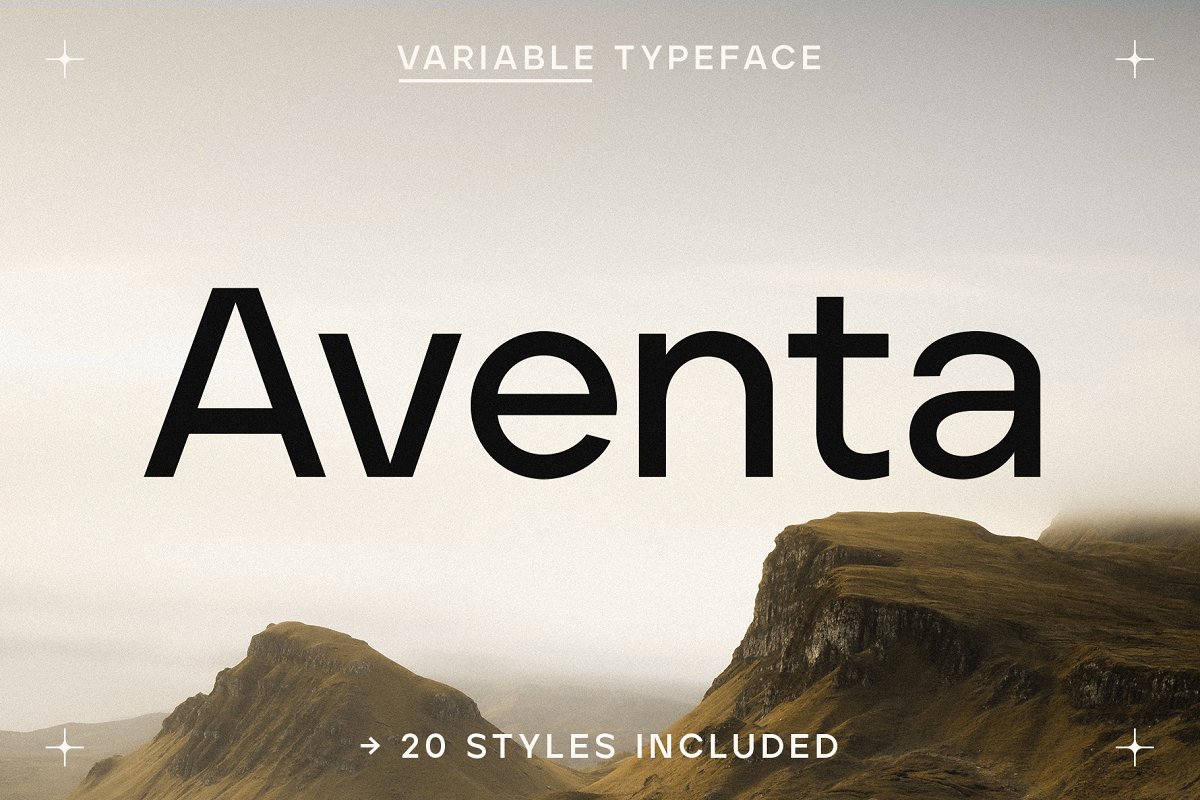
Web averta font free download click on the link below to get the free version, which you can use for personal purposes. Web aventa is an exciting geometric typeface with contemporary touches. The aventa variable font was designed by tom anders watkins ellen luff.
It’s Born From Strong Elementary Shapes, With Clean Circles.
Download for free and install for your website or photoshop. Basic font, sans serif aventa font is a modern sans serif typeface dedicated to minimalism as new design. The typeface has a simple, yet appealing,.
Web Aventa Is An Exciting Geometric Typeface With Contemporary Touches.
Web averta font free download here you can free download this font in a free version that can be used in all your personal and private projects. It’s born from strong elementary shapes, with clean circles interwoven with modern cuts and sharp edges. Web by clicking the download button you can see all examples of the aventa font along with all the styles.